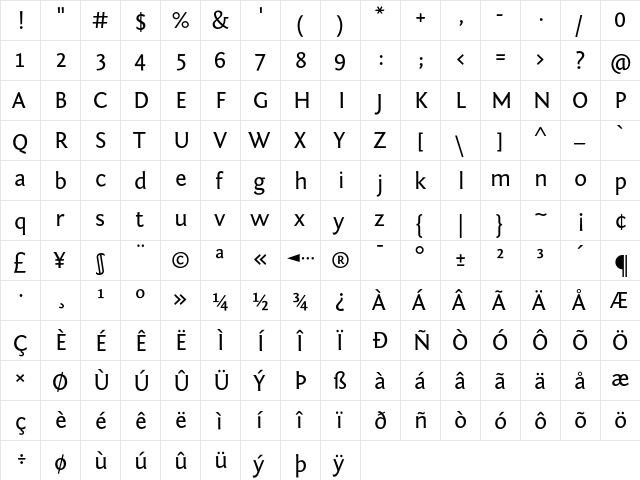
Fontin Sans Regular
| Foundry | Jos Buivenga |
Design Context for Fontin Sans Typeface
Fontin Sans offers clean, dependable letterforms without strong stylistic allegiance, making it a practical choice for designers who need flexibility.
Pro Tip: Pair Fontin Sans with a font of contrasting weight or personality to build a more expressive typographic hierarchy.